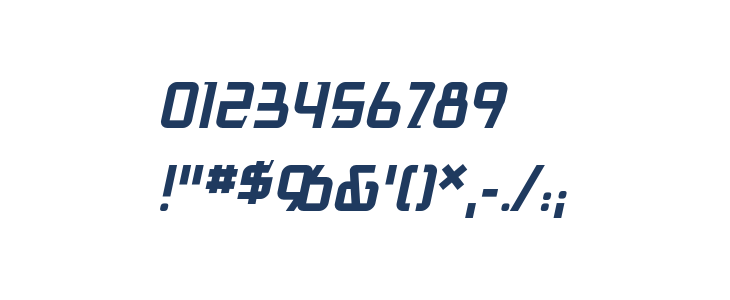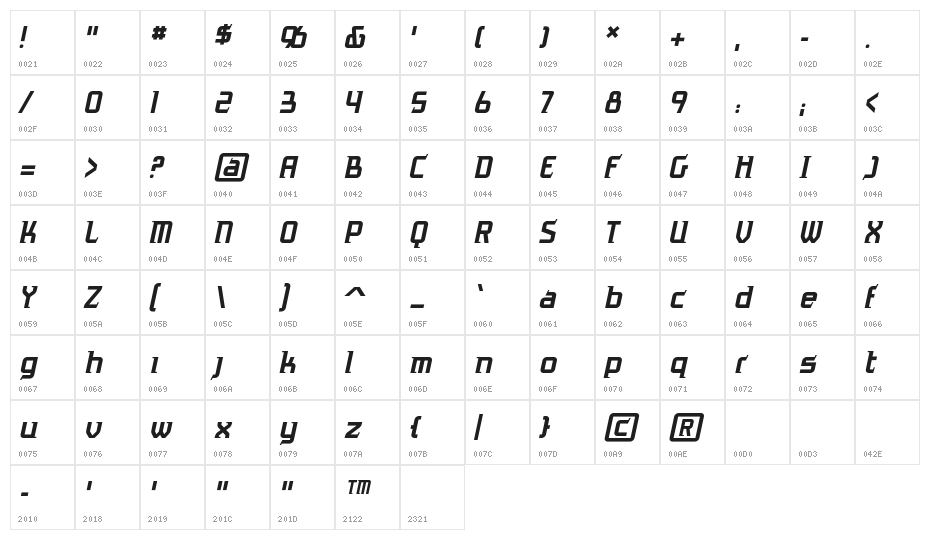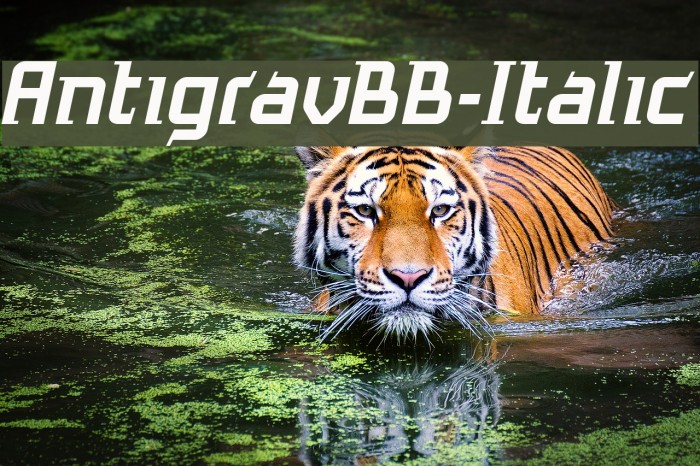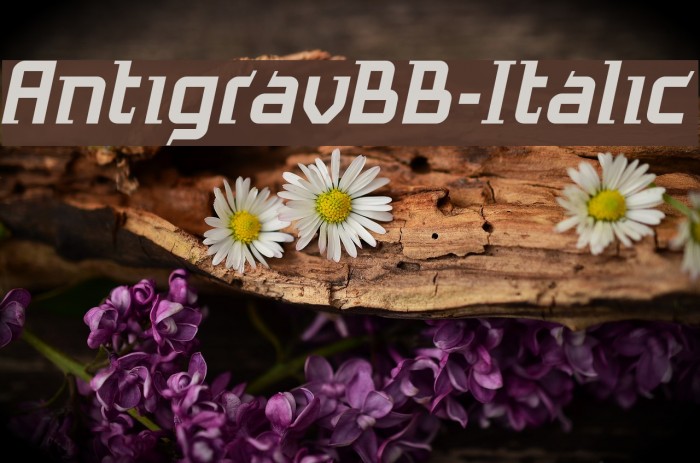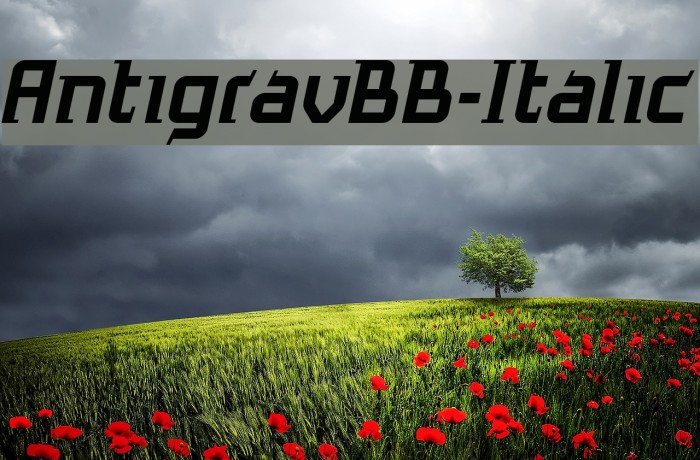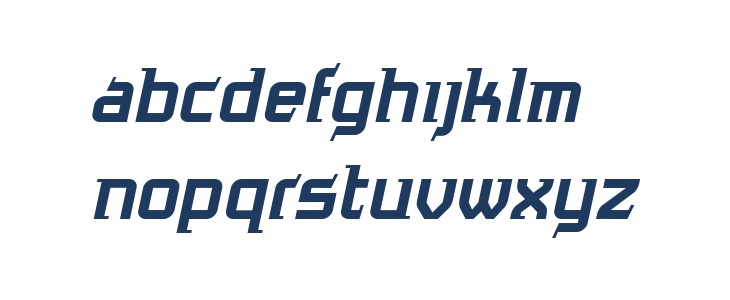
AntigravBB-Italic Font
AntigravBB-Italic Description
This font features a futuristic and dynamic design with a distinct italic slant, giving it a sense of motion and energy. The characters are bold and angular, with sharp edges and a geometric structure that adds to its modern appeal. The uppercase and lowercase letters maintain a consistent style, while the numerals and special characters complement the overall aesthetic. The font's unique style makes it stand out, suitable for projects that require a contemporary and edgy look.
| Proposed Projects | Ideal for sci-fi themed designs, video game titles, technology branding, and dynamic posters. |